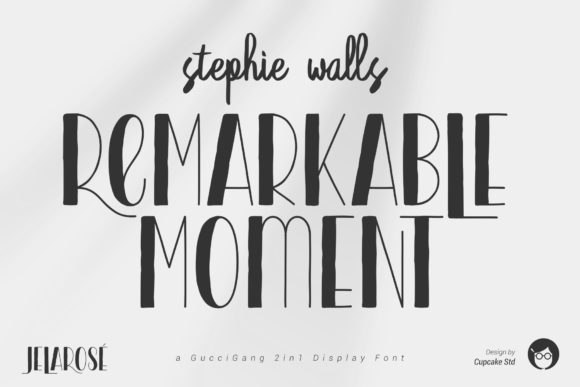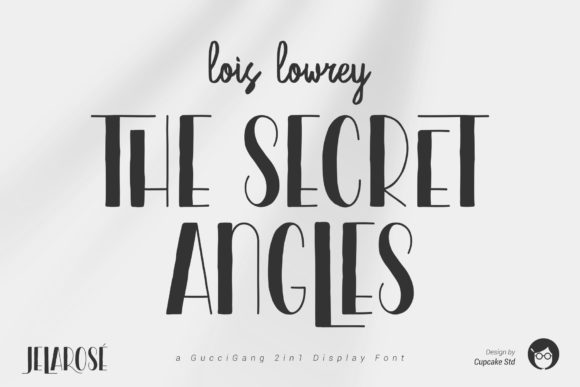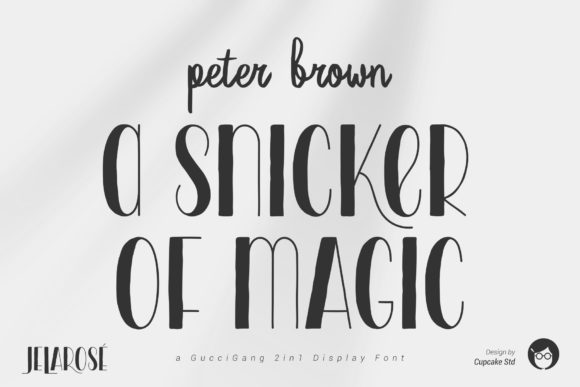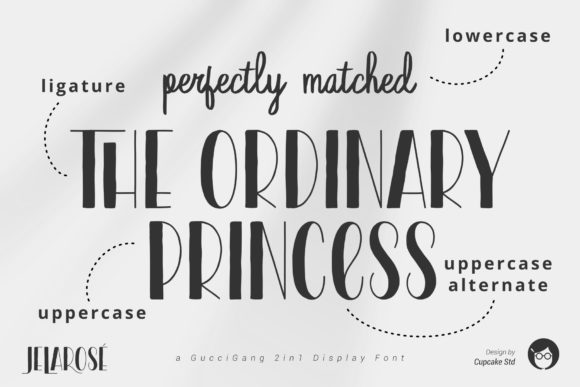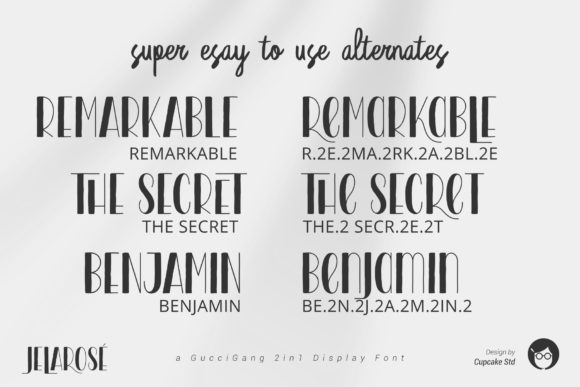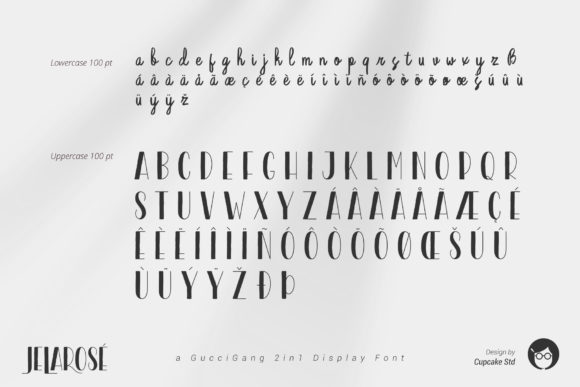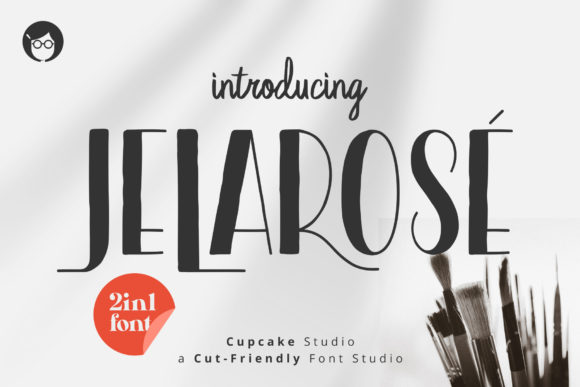
Introducing AL Jelarose 2 in 1 Font: Elevate Your Designs with Modern Charm
In the world of typography, a font can make or break a design. It’s the foundation upon which creativity is built, and the right choice can elevate a project from ordinary to extraordinary. For designers and crafters seeking a modern display font that exudes casual charm and versatility, look no further than AL Jelarose 2 in 1 Font. This handcrafted gem is designed to become a true favorite in your typographic arsenal, offering a unique blend of readability, charm, and adaptability.
The Allure of Jelarose
Jelarose is more than just a font; it’s a design statement. Its modern display characteristics make it perfect for projects that demand a fresh, contemporary look. The casual charm of Jelarose lies in its balanced design, which strikes a perfect chord between elegance and approachability. This balance makes it wonderfully down-to-earth, allowing it to connect with a wide audience.
Readability and Versatility
One of the standout features of Jelarose is its exceptional readability. In today’s fast-paced digital world, fonts that can be read easily across various devices and backgrounds are invaluable. Jelarose shines in this regard, ensuring that your message is conveyed clearly and effectively, whether it’s used on busy backgrounds or as a standalone headline. Its versatility is another significant advantage, making it suitable for a myriad of design applications, from branding and advertising to packaging and digital media.
Design Possibilities with Jelarose
The true test of a font’s versatility lies in its ability to adapt to different design contexts. Jelarose passes this test with flying colors. Here are some design possibilities where Jelarose can make a significant impact:
- Branding and Logotypes: Use Jelarose to create memorable brand names or logotypes that stand out due to their modern and approachable feel.
- Headlines and Titles: Its display characteristics make it perfect for headlines, titles, and captions that need to grab attention.
- Digital Media: Jelarose can enhance the visual appeal of your website, social media posts, and digital advertisements, making your content more engaging.
- Print Materials: From brochures and flyers to posters and business cards, Jelarose can add a touch of modern elegance to your print materials.
What Makes Jelarose Unique?
Jelarose’s uniqueness stems from its careful handcrafting. Every letterform is designed with precision and a keen eye for detail, ensuring that the font possesses a distinct character without losing legibility. The 2 in 1 feature of the font provides users with options, enhancing its utility and value.
Tips for Using Jelarose Effectively
To maximize the impact of Jelarose in your designs, consider the following tips:
- Pair it Wisely: Experiment with pairing Jelarose with complementary fonts to create visual hierarchy and add depth to your designs.
- Play with Sizes: Take advantage of Jelarose’s versatility by using it in various sizes, from large headlines to smaller body text.
- Utilize Color: Don’t be afraid to use color to make your text pop. Jelarose looks great in bold, vibrant colors as well as subtle, muted tones.
AL Jelarose 2 in 1 Font is a modern display font that brings a fresh perspective to your designs. Its blend of casual charm, readability, and versatility makes it an invaluable asset for designers and crafters. Whether you’re working on a digital project or a print material, Jelarose is poised to become your go-to font for creating visually stunning and effective designs. Embrace the modern charm of Jelarose and elevate your typography to new heights.